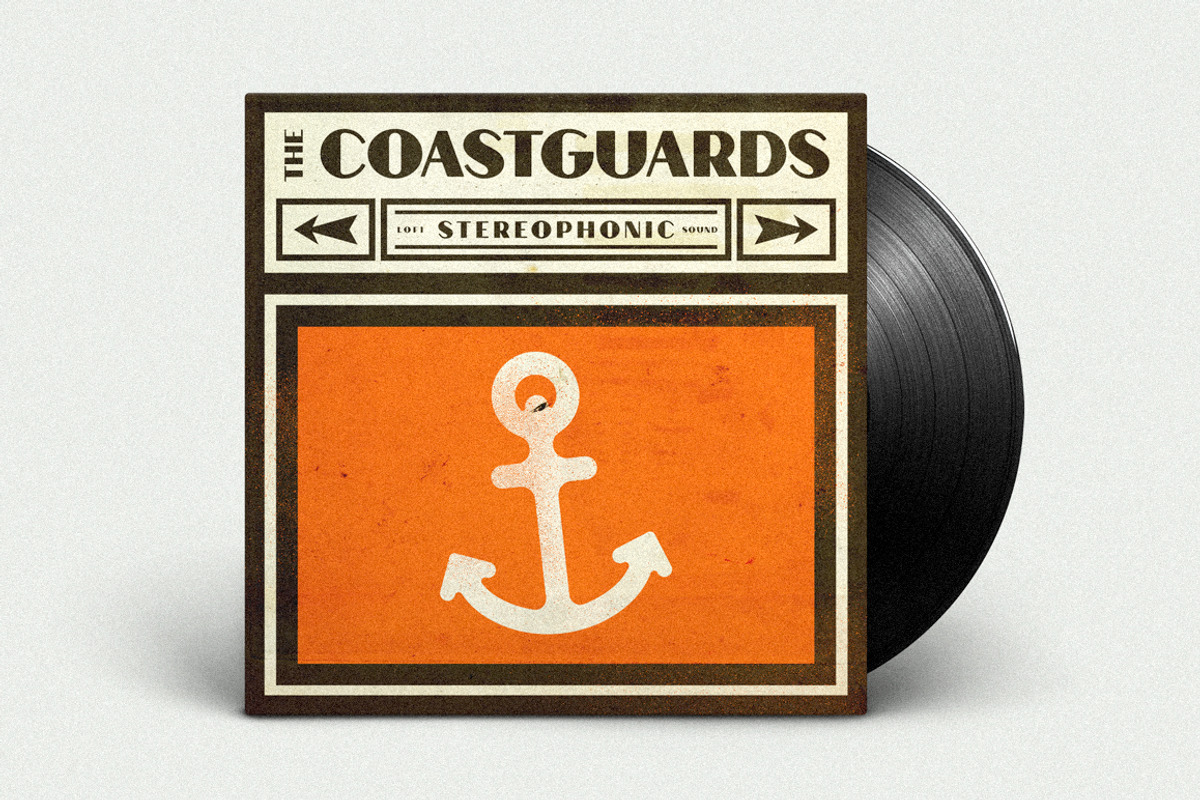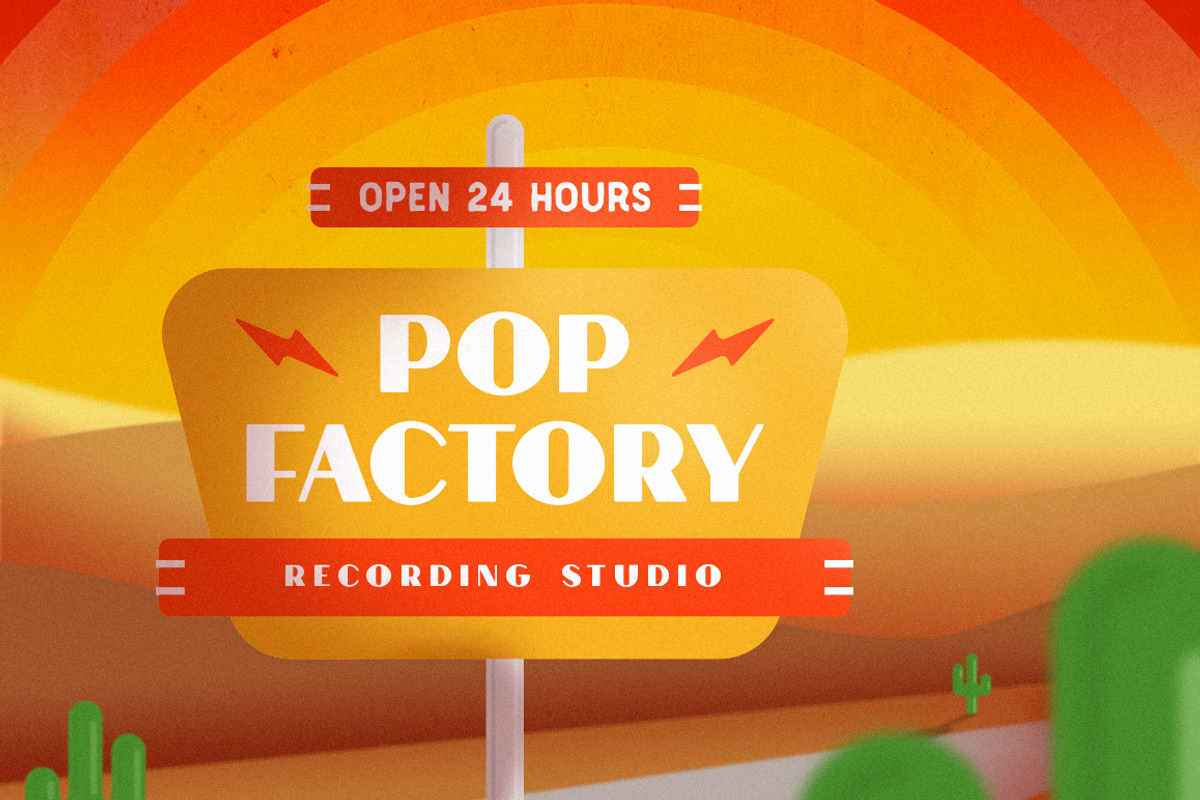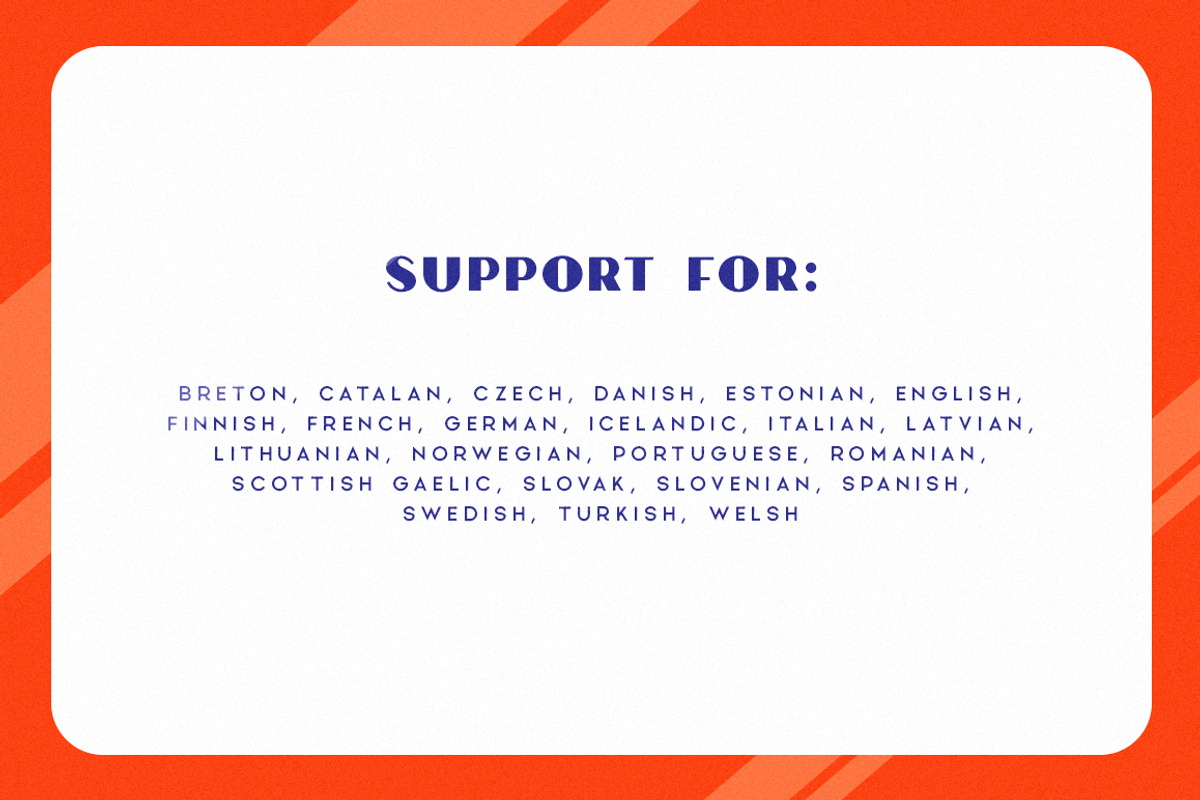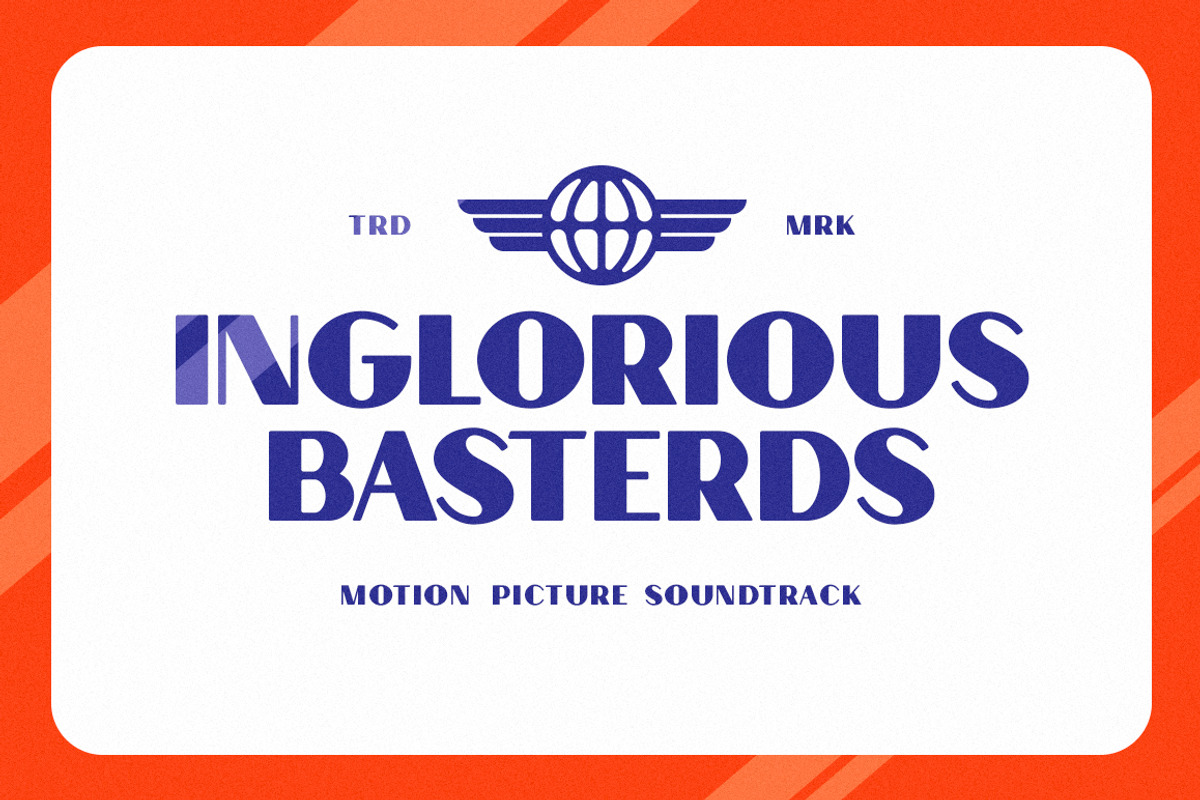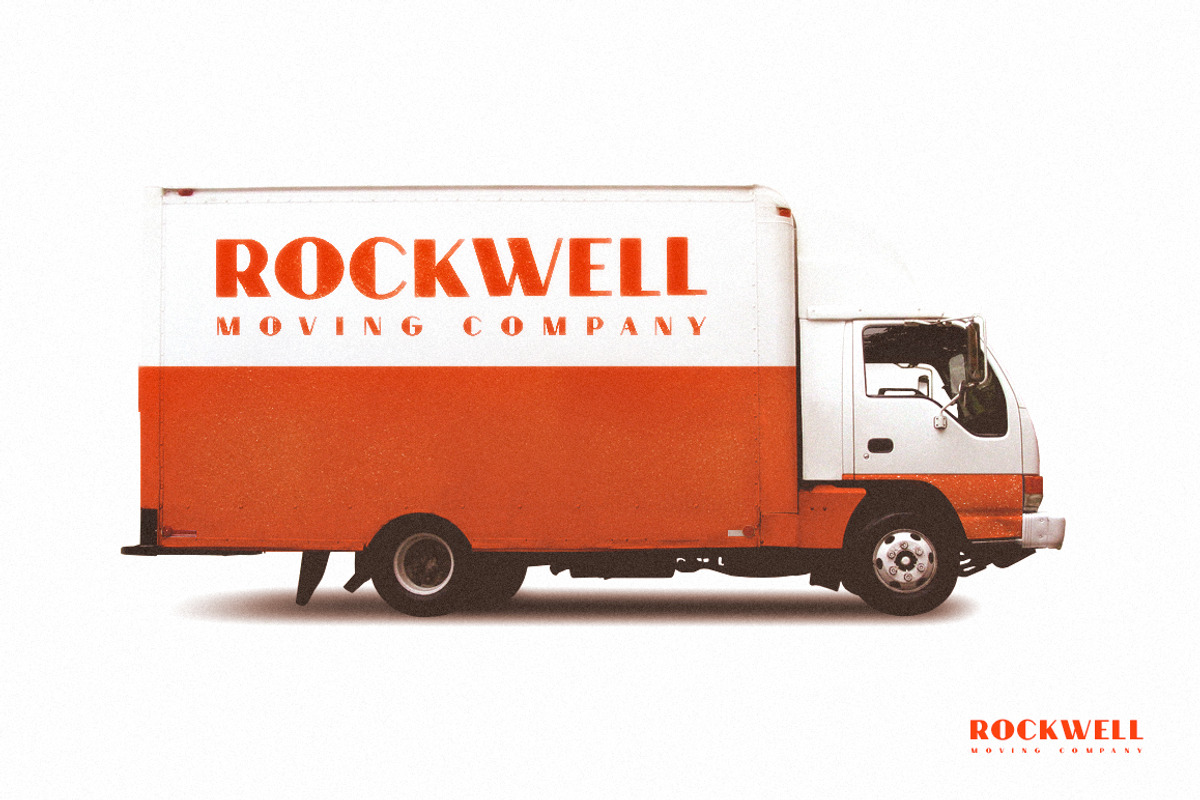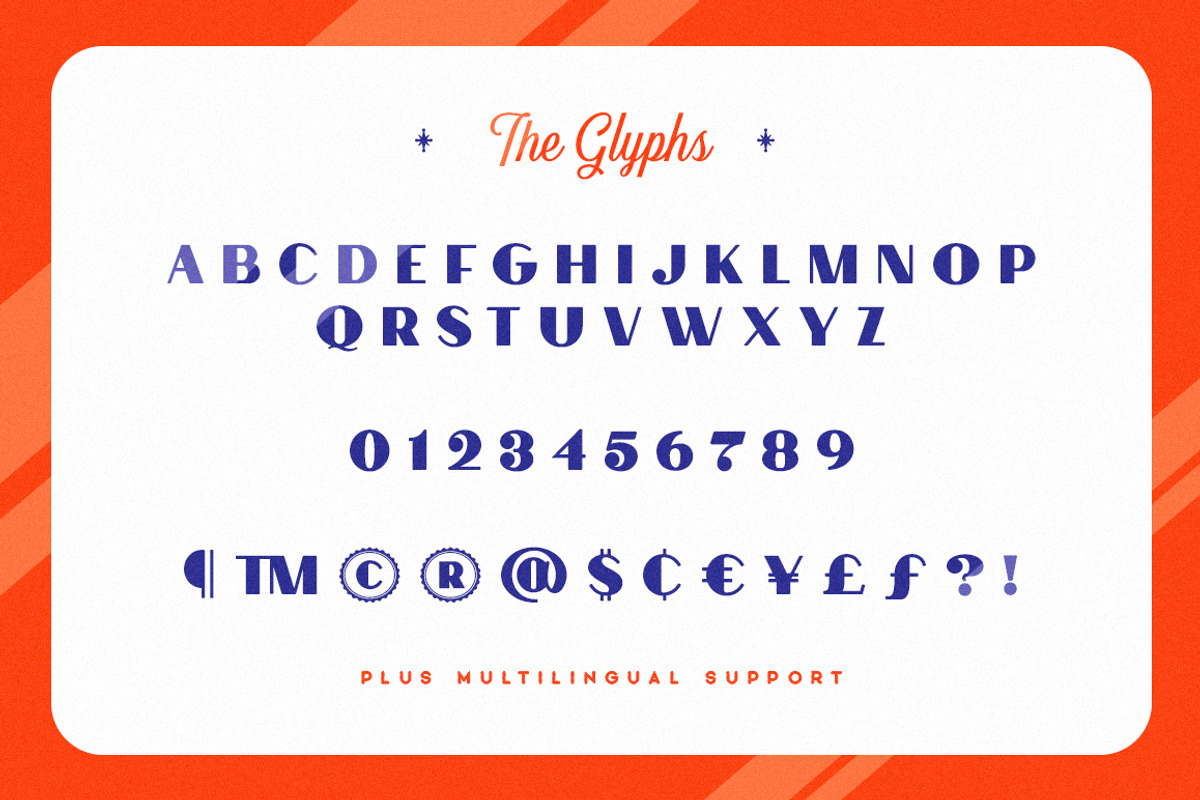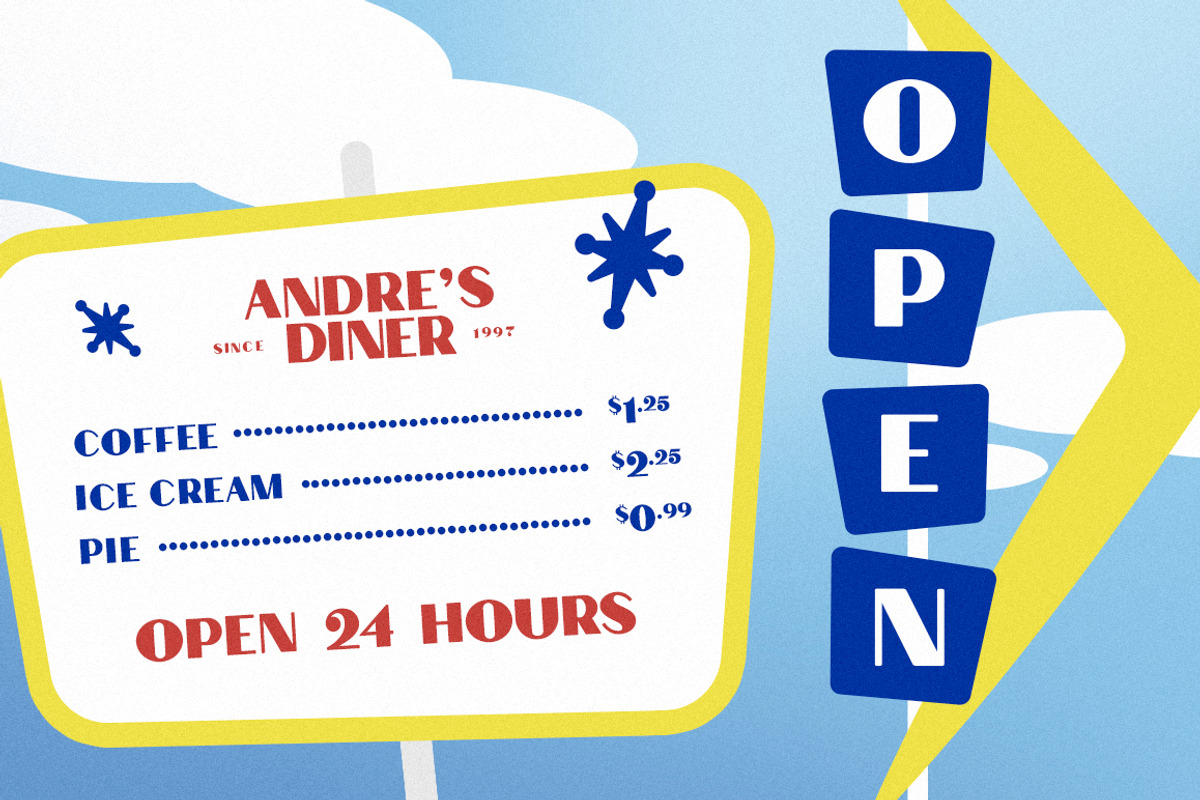
Andre's Diner Display Font
Andre's Diner Display Font by Vintage Type Company is a font selected for branding, posters, packaging, typography.
- It sports smooth corners, and extreme stroke contrast for ease of legibility as well as comes equipped with multilingual support for an arra
Why Andre's Diner Display Font is worth a look
Andre's Diner Display Font by Vintage Type Company fits naturally into Branding, posters, packaging, typography.